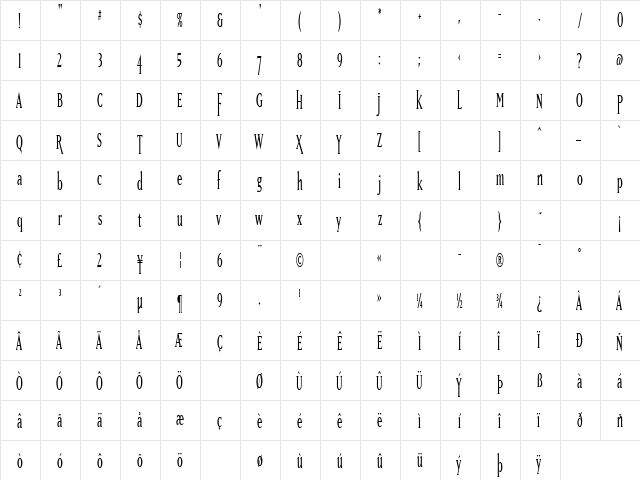
MatrixTallOldstyle Regular
Design Context for MatrixTallOldstyle Typeface
MatrixTallOldstyle carries the refined structure of traditional serif typography, with bracketed terminals and considered proportions that communicate credibility and craft.